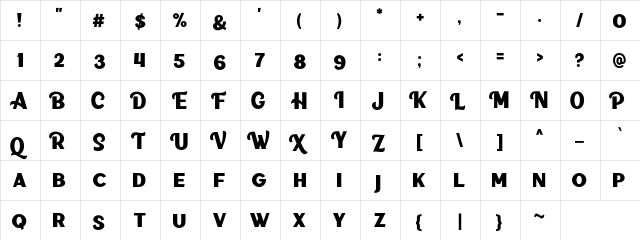
Sirens DEMO Regular
| Foundry | Sarid Ezra |
| Designer | Sarid Ezra |
Design Context for Sirens DEMO Typeface
Sirens DEMO is a composed and adaptable typeface that performs quietly and consistently across a wide range of design contexts.